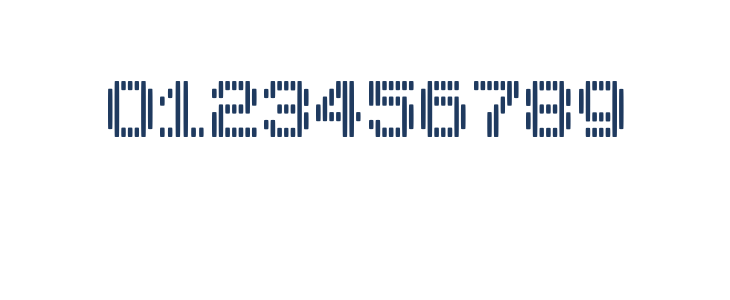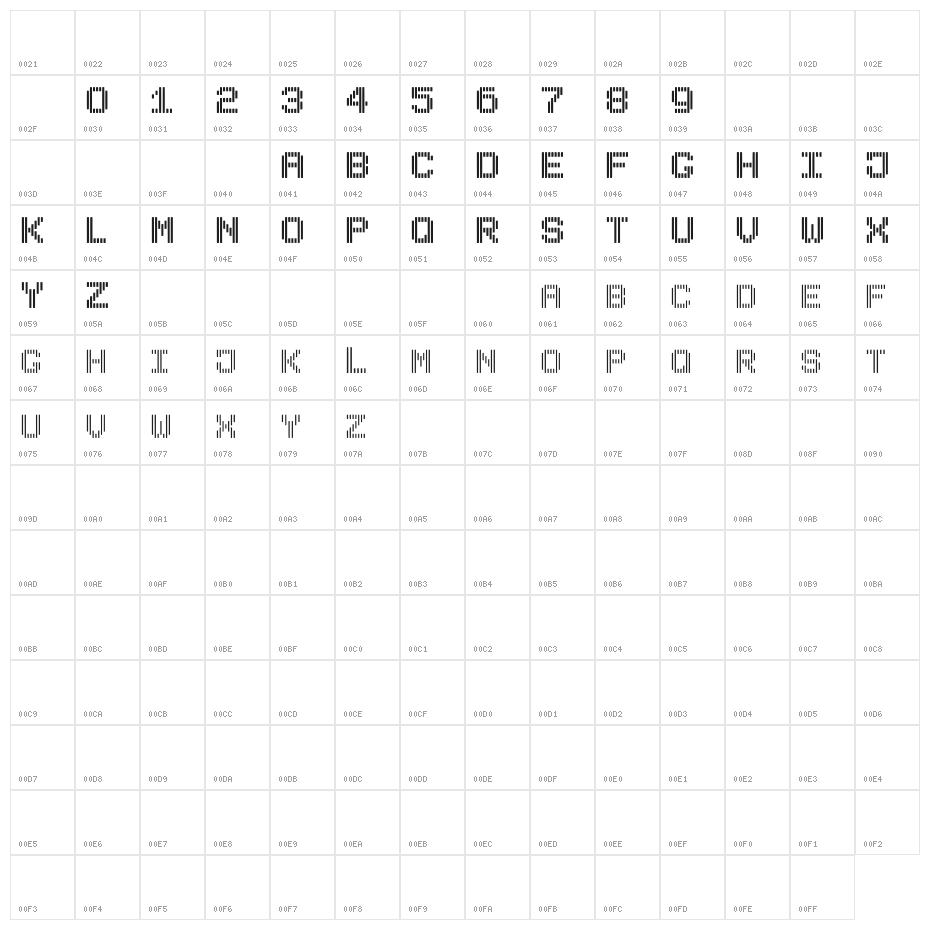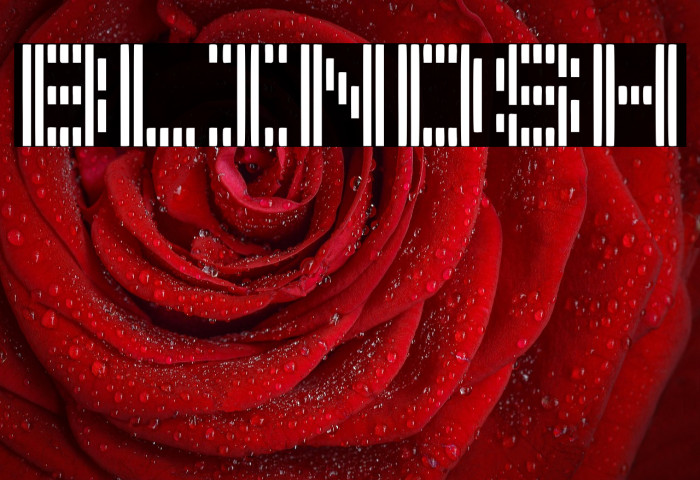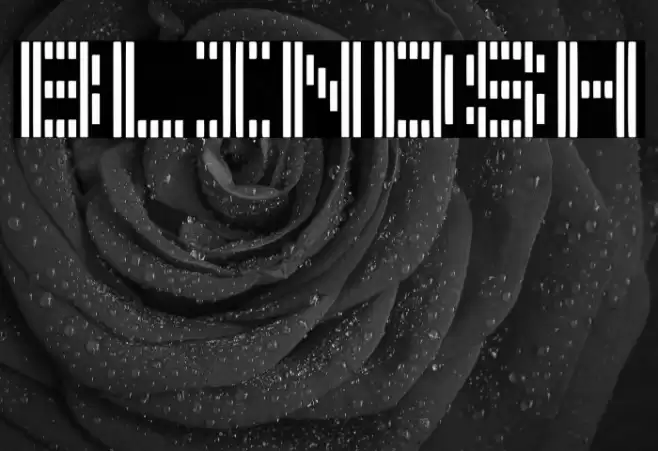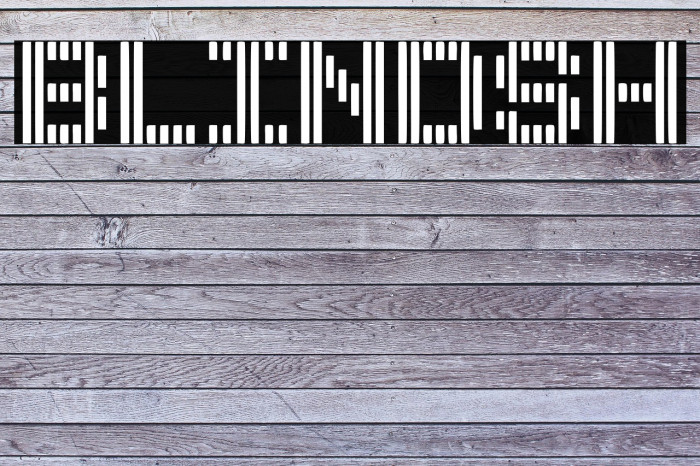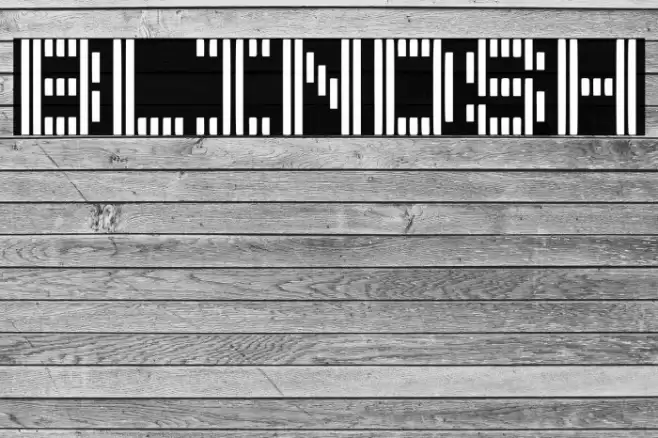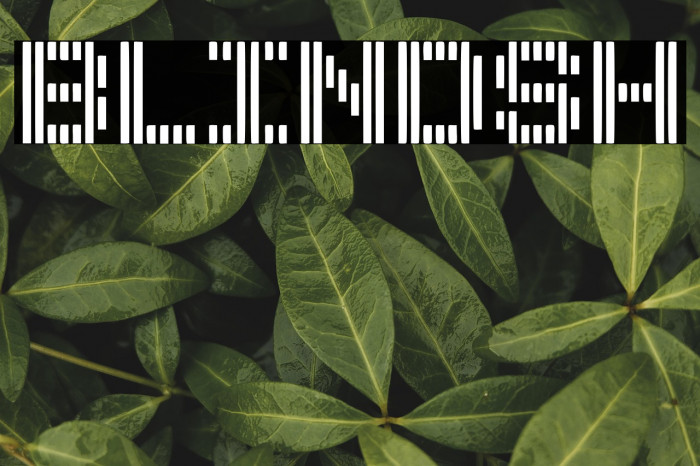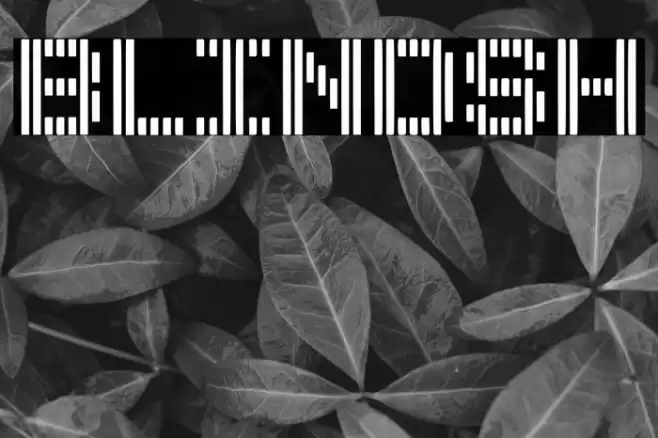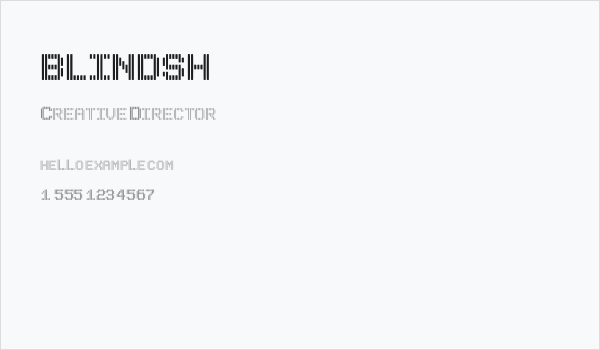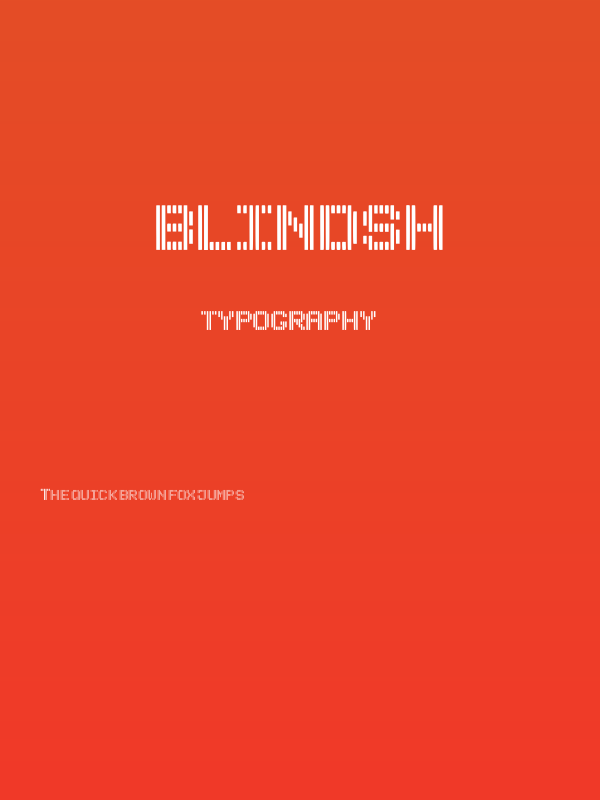
BLINDSH Font
BLINDSH Description
This font features a unique, segmented design that resembles blinds or shutters, giving it a modern and digital aesthetic. Each character is composed of vertical lines that create a pixelated effect, making it stand out with a distinct, futuristic look. The uppercase and lowercase letters maintain a consistent style, while the numbers and special characters follow the same segmented pattern. This font is ideal for projects that require a tech-savvy or avant-garde appearance, offering a bold statement with its unconventional structure.
| Proposed Projects | Ideal for digital art, tech branding, futuristic posters, and innovative product packaging. |